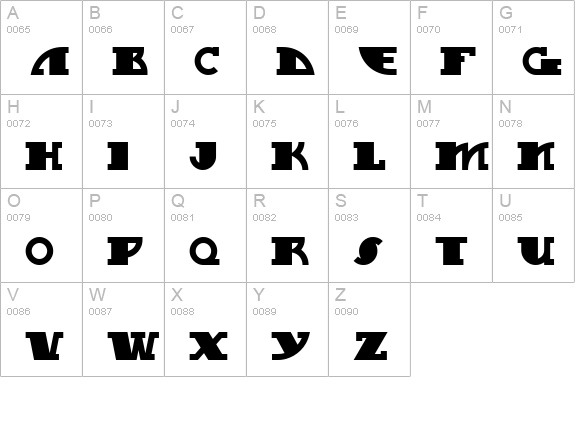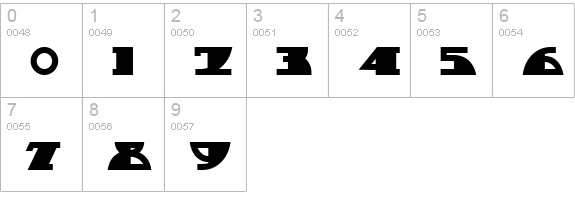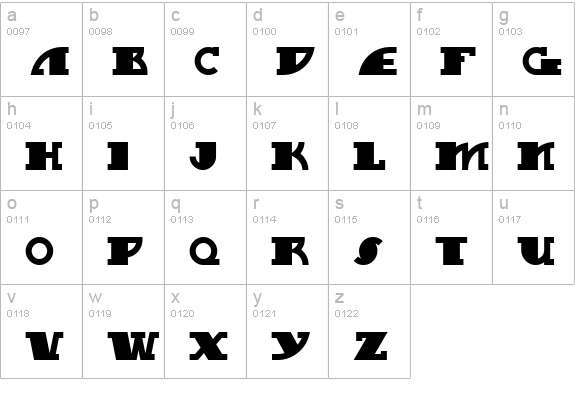
My Gal Swoopy NF Font Details
My Gal Swoopy NF font exudes a charming and whimsical vibe, perfect for adding a touch of playfulness to your designs. This delightful display font features swooping lines and playful curves that give it a unique and distinctive look. Whether you're creating invitations, posters, or branding materials, My Gal Swoopy NF font will surely make your text stand out in style. And the best part? My Gal Swoopy NF font is completely free to download at FontsMarket.com. So go ahead and add this fun and quirky font to your collection today! Embark on a creative journey with My Gal Swoopy NF font and watch as your designs come to life with its charming personality and unique flair. Let your imagination run wild and unleash your creativity with this freely available font.